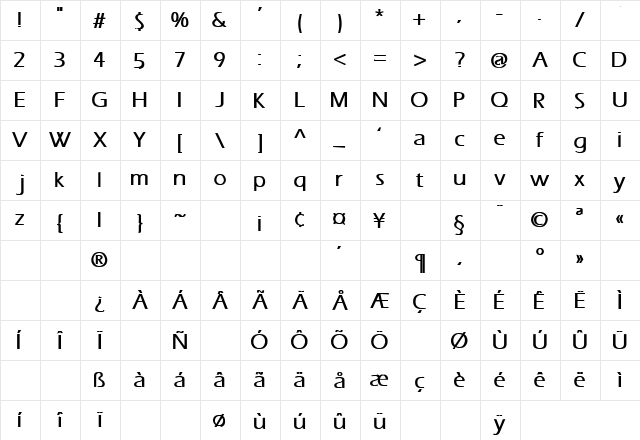
Presence 19 Bold
Design Context for Presence 19 Typeface
Presence 19 is a composed and adaptable typeface that performs quietly and consistently across a wide range of design contexts. The heavy weight commands attention and anchors typographic hierarchies.